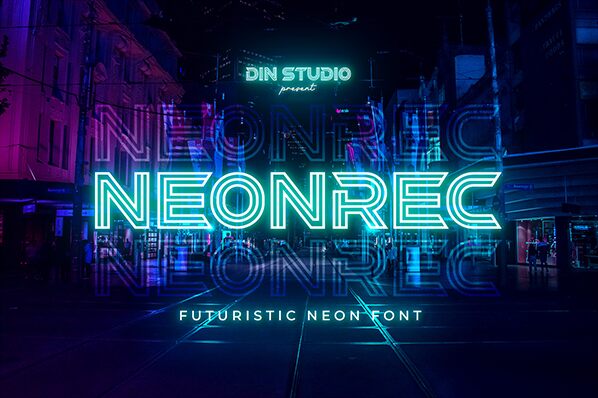
Neonrec
Neonrec by Ditatype embodies a striking fusion of boldness and futuristic flair. Its expansive letterforms create a captivating visual impact, making it instantly recognizable and appealing. The design echoes the vibrancy of neon lights, perfect for evoking a modern, dynamic atmosphere.
Ideal for stand-out branding, attention-grabbing headlines, or eye-catching posters, Neonrec excels in contexts where energy and innovation are paramount. Its substantial presence ensures it commands attention in both digital and print formats. Whether used in tech-focused designs or vibrant nightlife promotions, this font's distinct character enhances any creative project with an unmistakable edge.